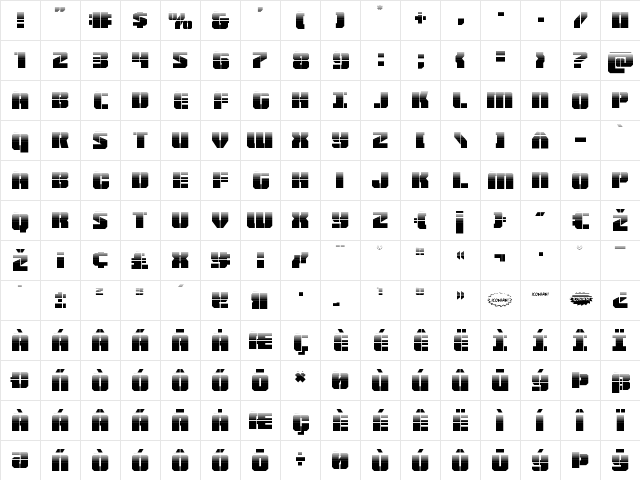
Warp Thruster Half-Tone Regular
Design Context for Warp Thruster Half-Tone Typeface
Warp Thruster Half-Tone is a composed and adaptable typeface that performs quietly and consistently across a wide range of design contexts.